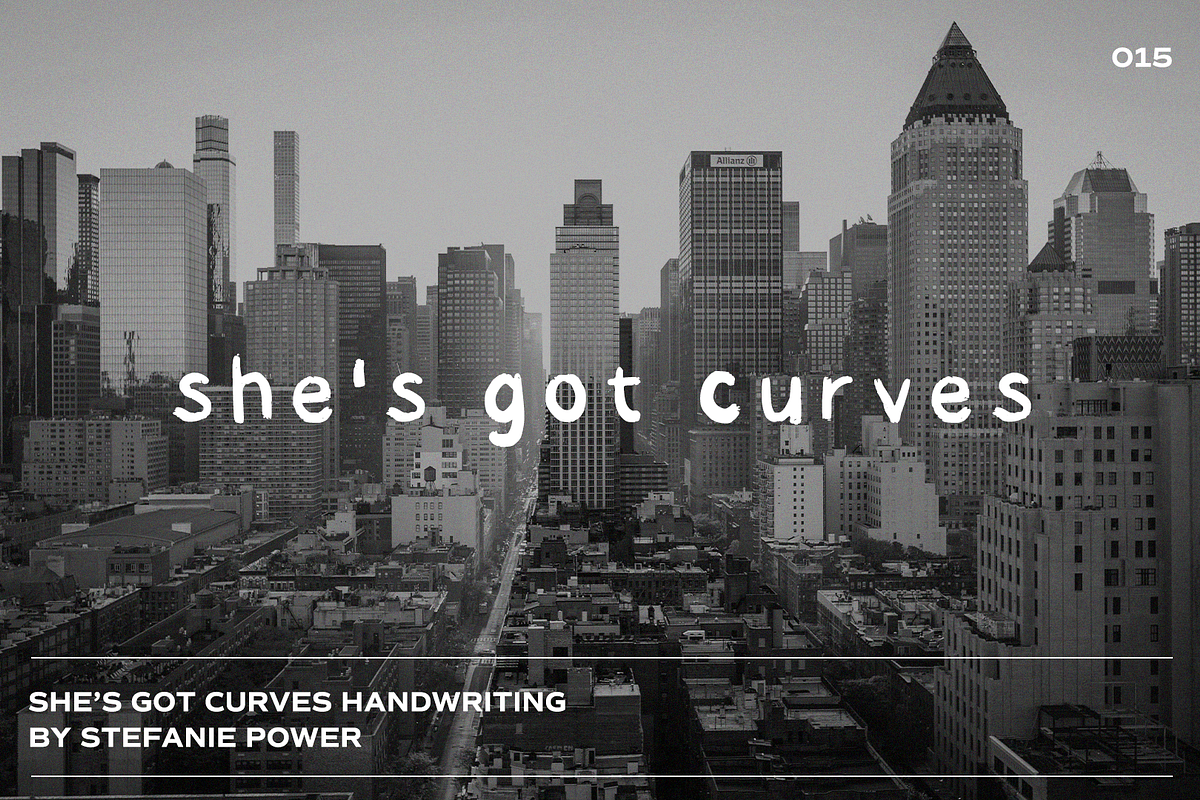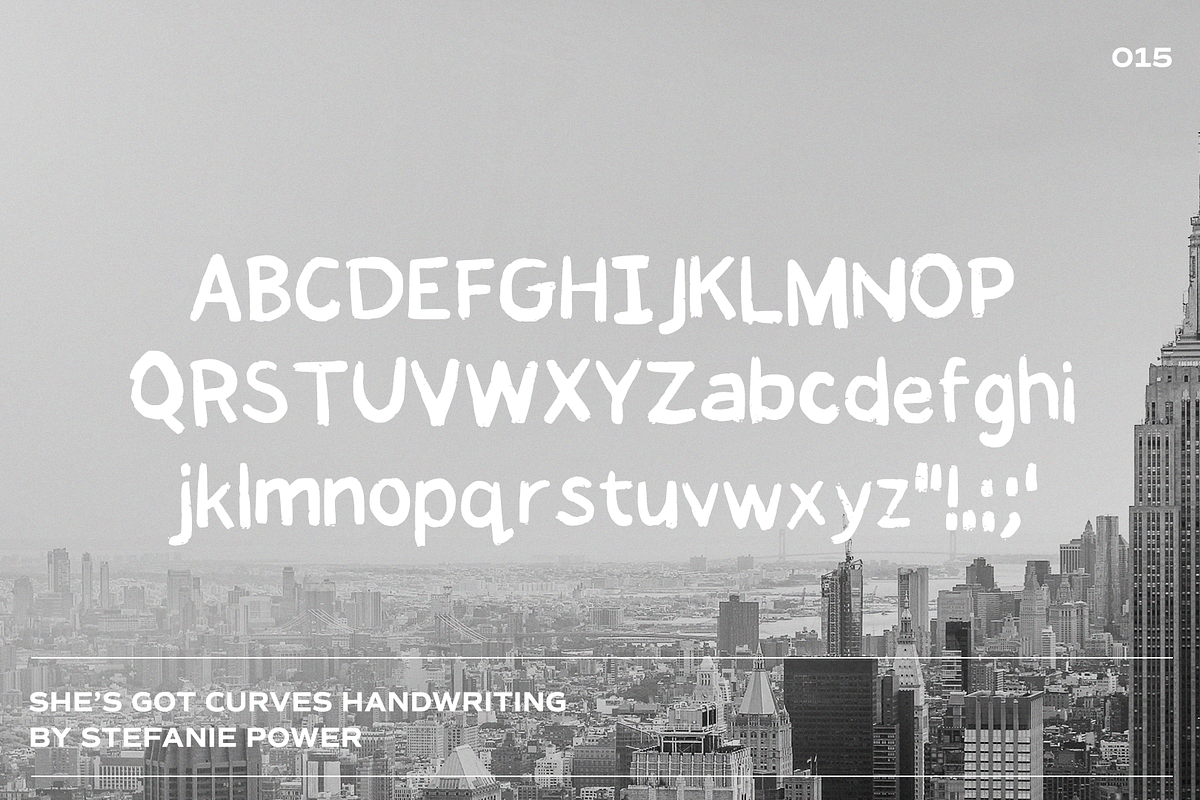
She's Got Curves Handwriting | Font
Introducing 'She's Got Curves' - a fun, thick and curvy font
She's Got Curves Handwriting • A handwritten script font containing upper & lowercase characters and a range of punctuation and numbers.